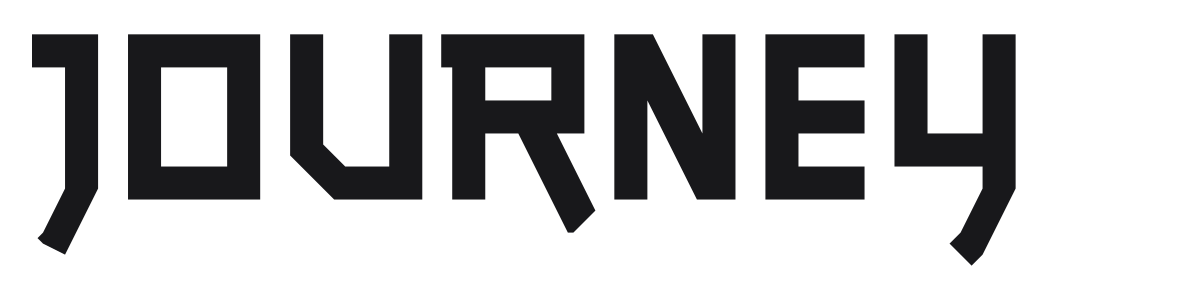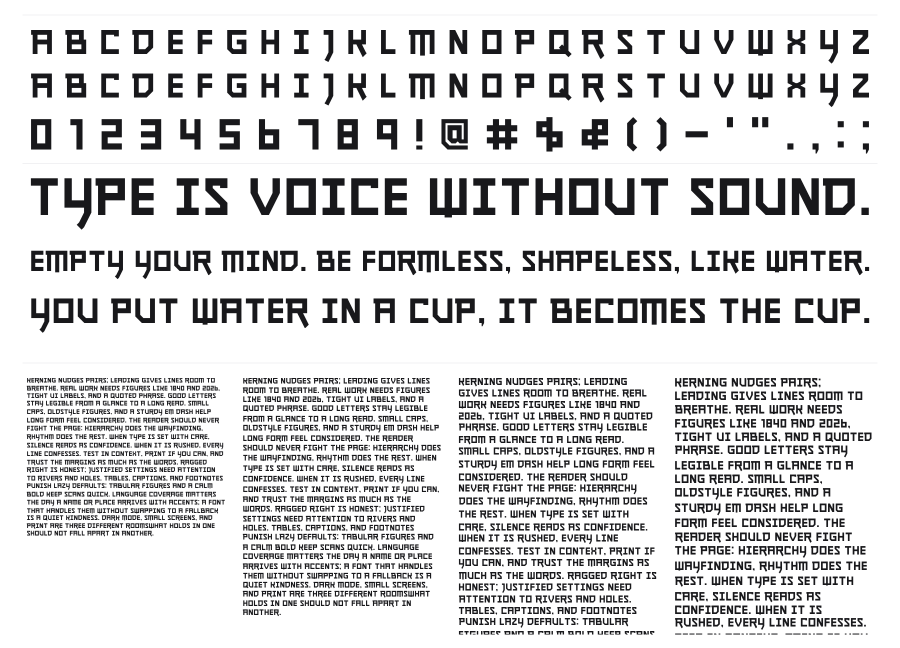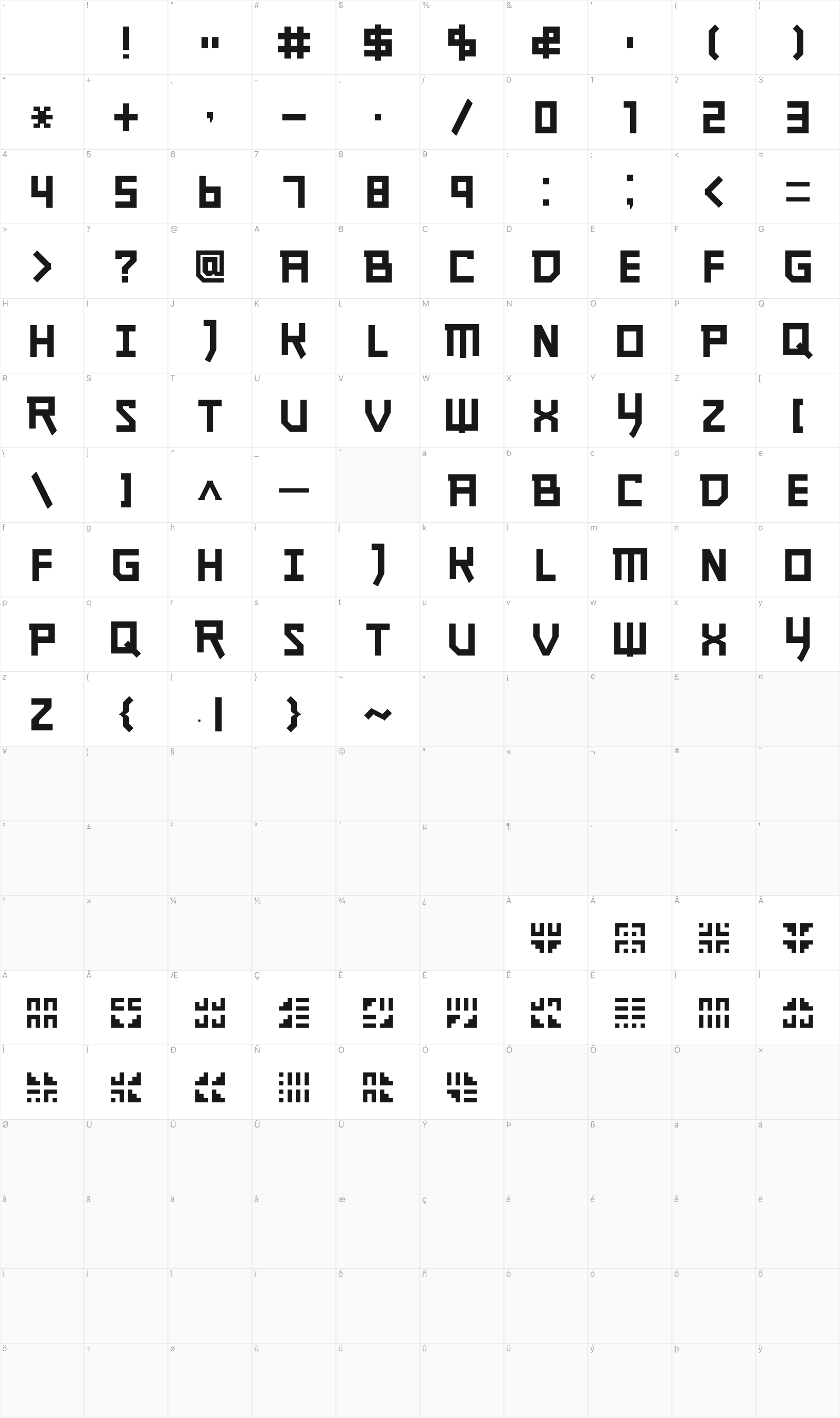
Journey
by Greg O'Malley
Journey is a heavy square techno display font built on a rigid grid with chunky, angular characters and near-zero stroke contrast. The blocky construction and notched joints give it a mechanical, assembled quality, somewhere between stencil and circuit board. It works at large sizes for gaming titles, industrial branding, or any headline that needs weight and edge.